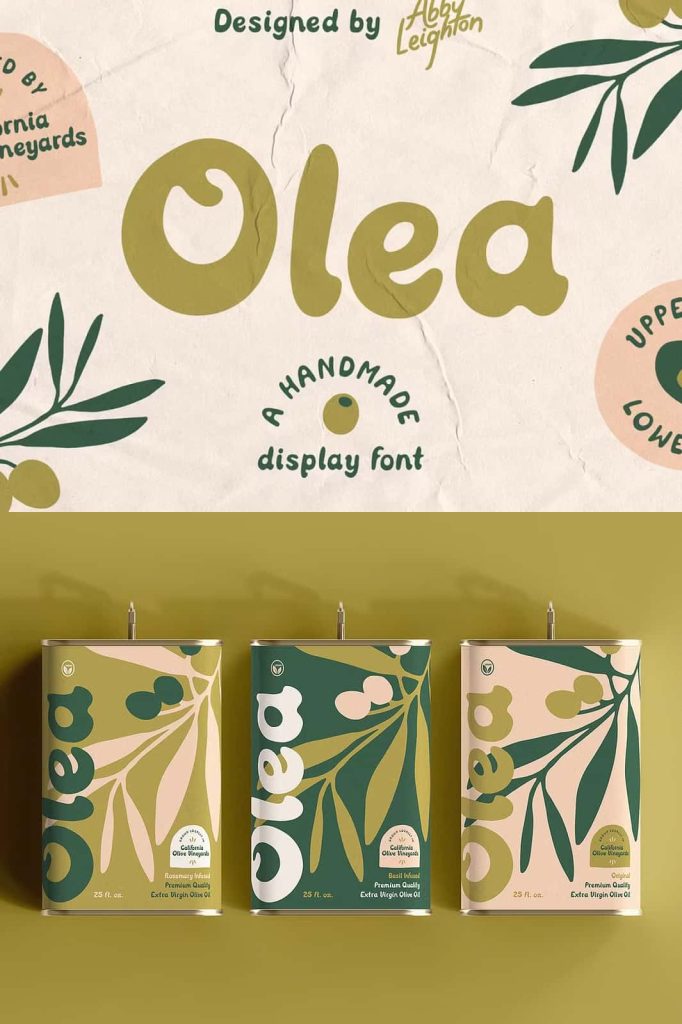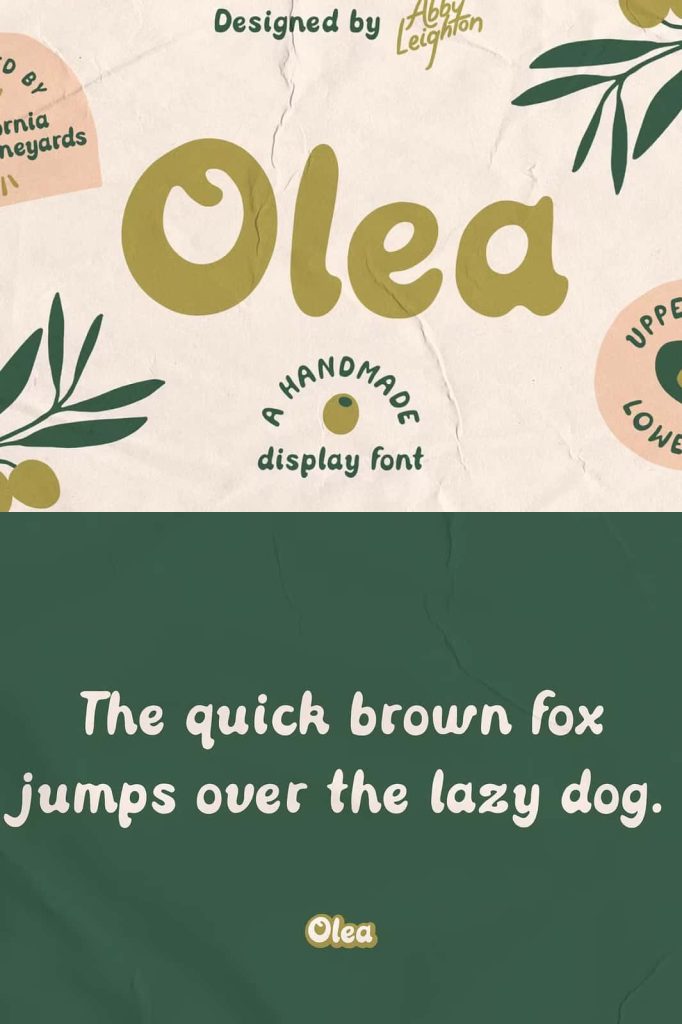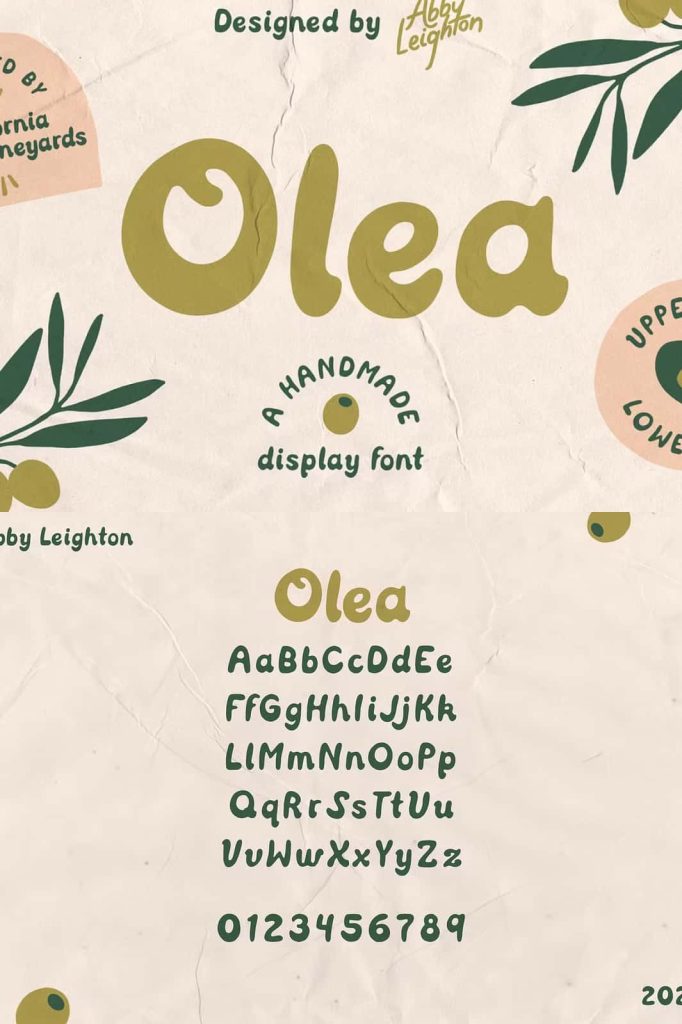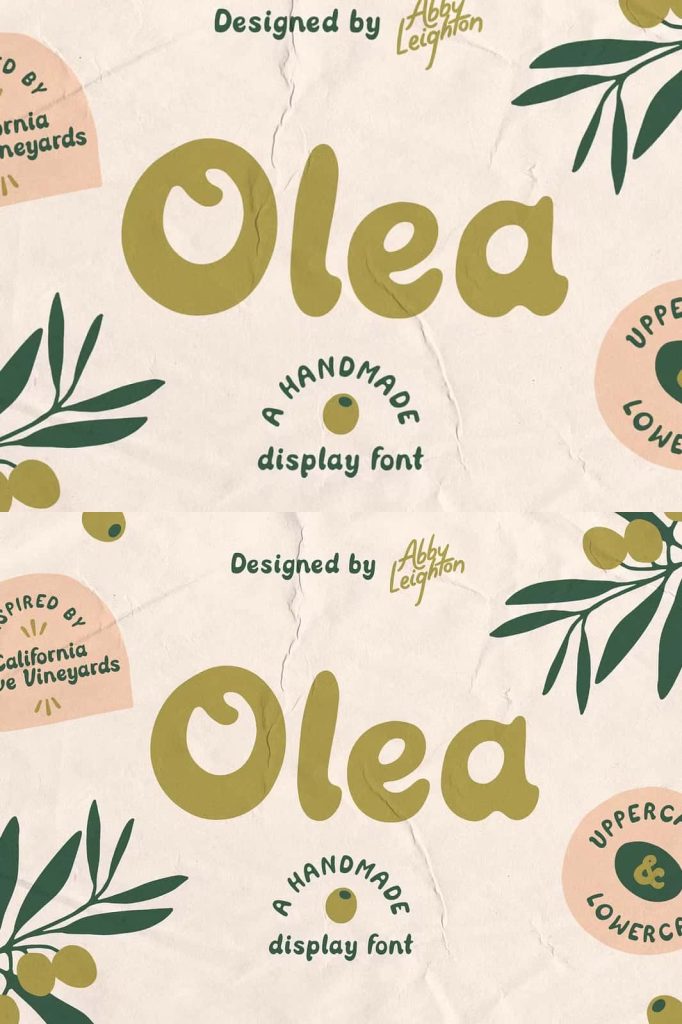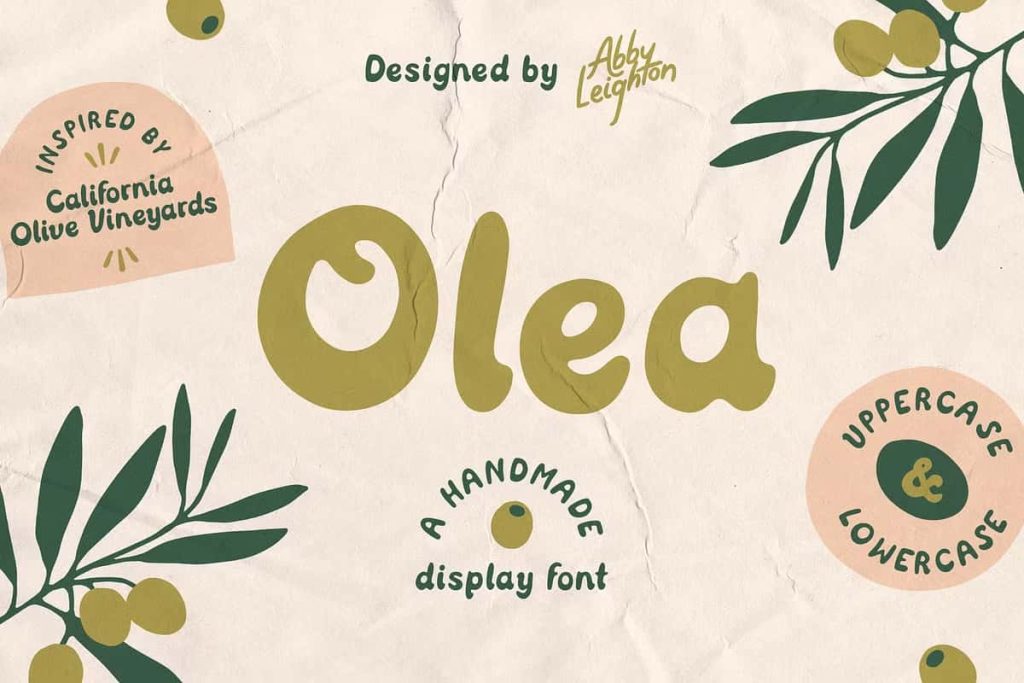
OLEA by Abby Leighton
OLEA is a handmade typeface inspired by California olive vineyards. It’s hand-drawn and playful and will give you that perfect handcrafted touch in your project